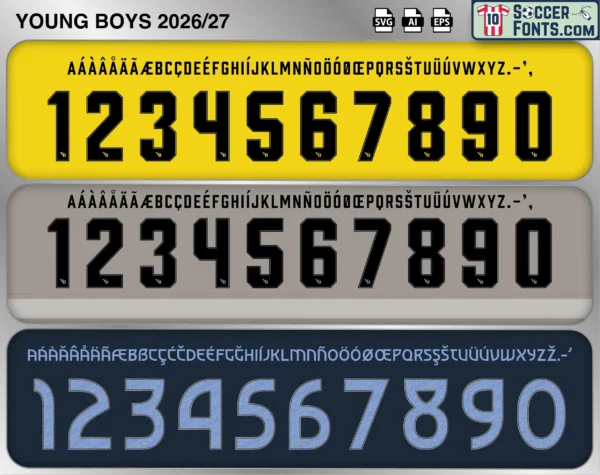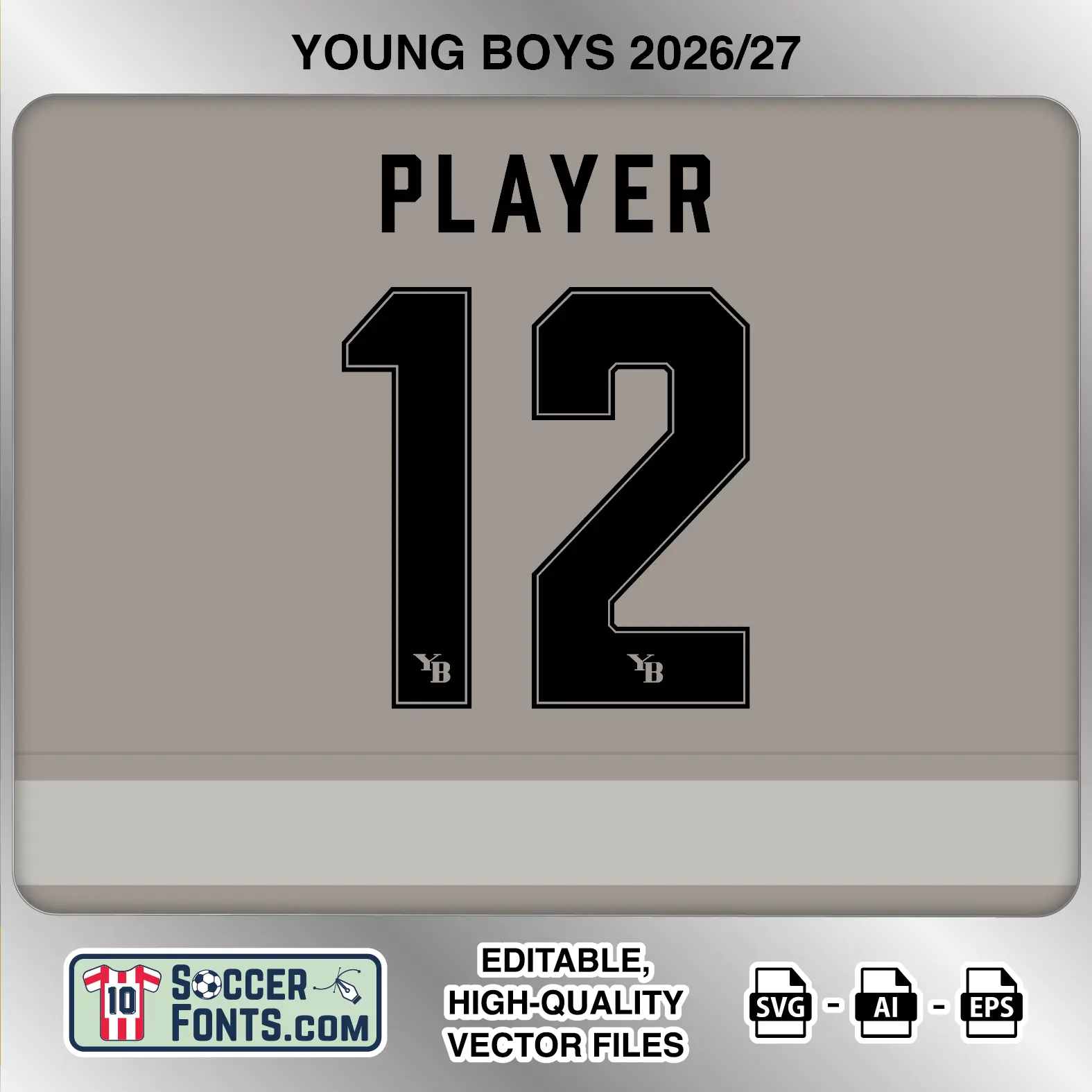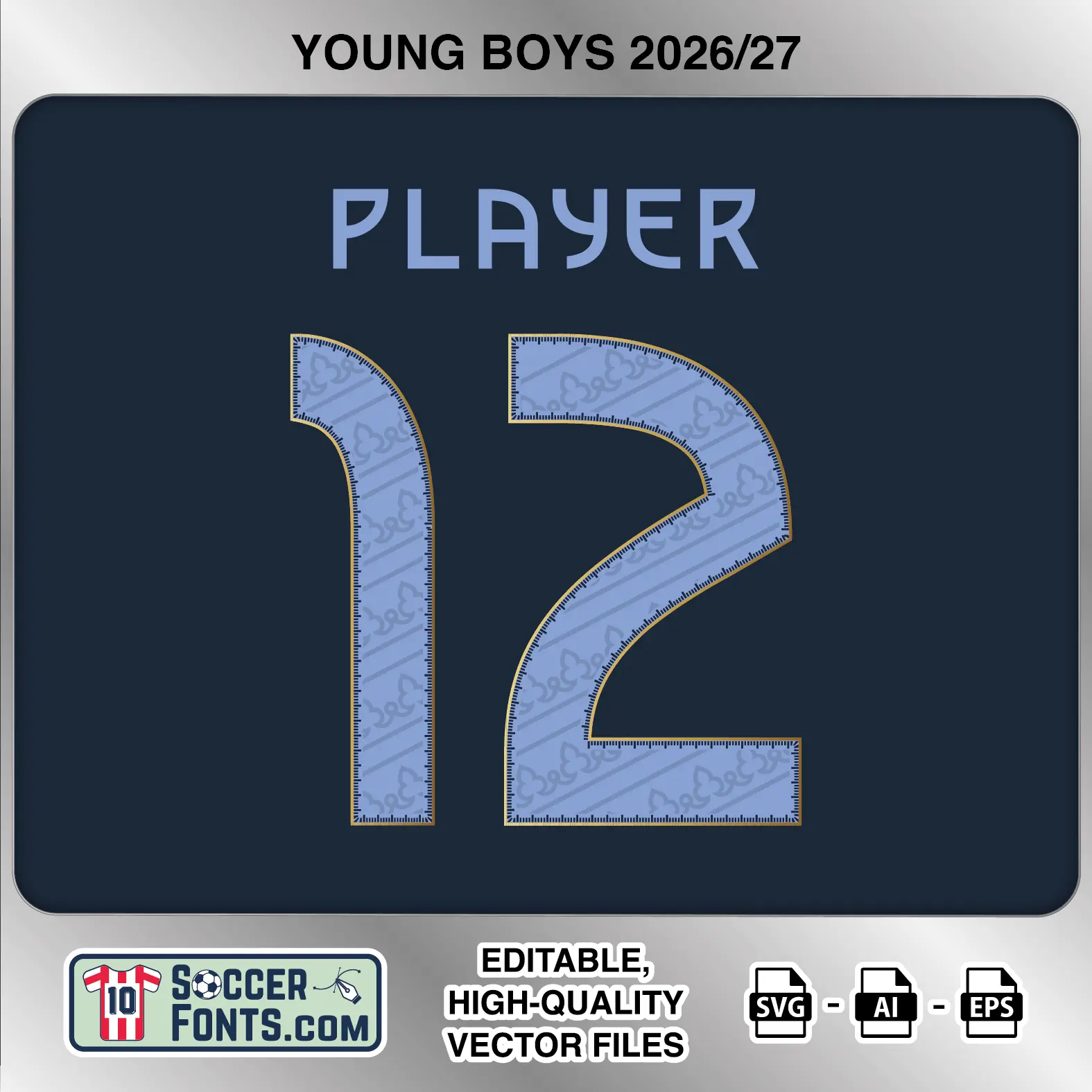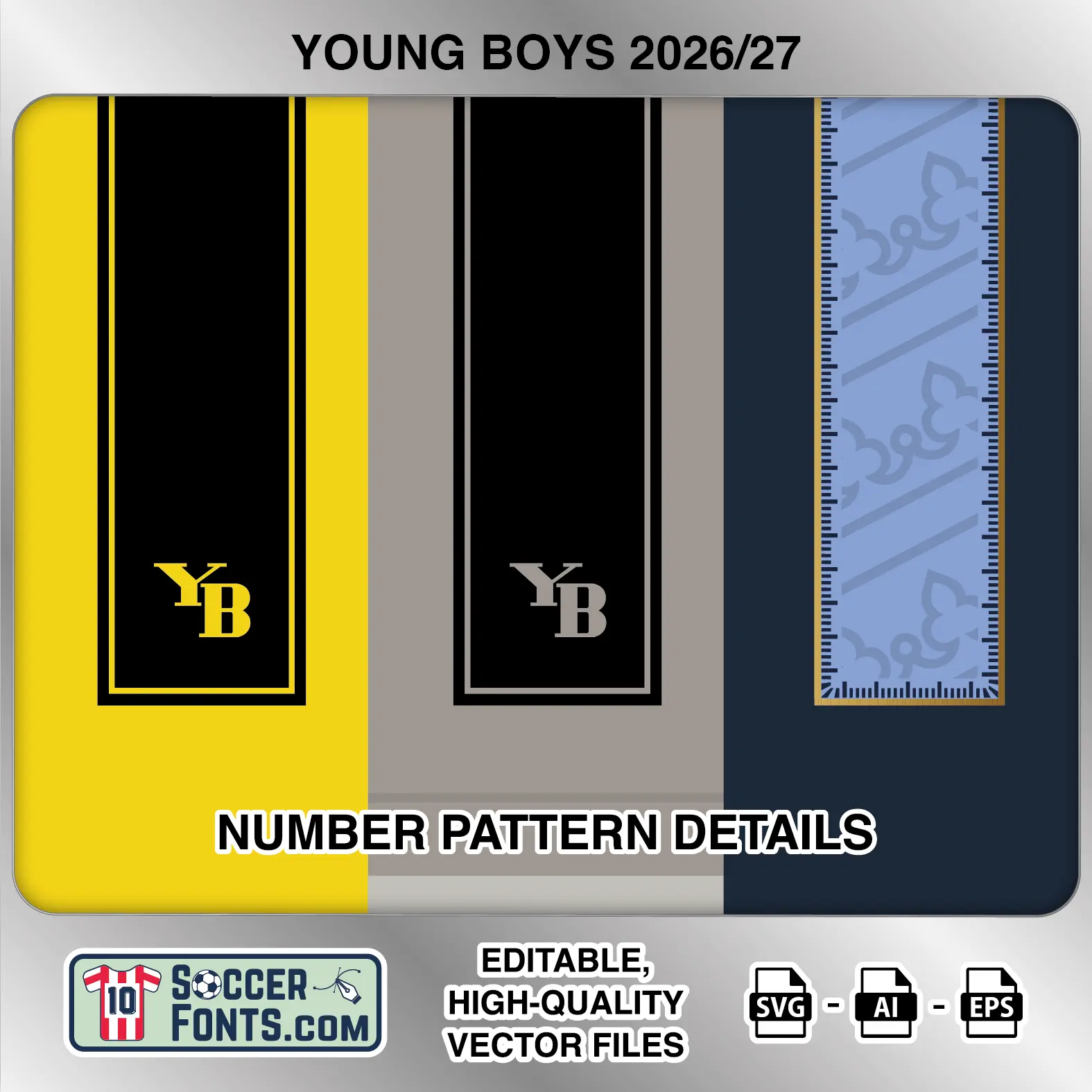
About Young Boys 2026-27 Font
Download Young Boys 2026-27 font, an editable soccer jersey lettering design in vector format inspired by the Young Boys home, away and third kit styles used during the 2026-27 football season. This football font artwork is prepared for football shirt recreations, custom jersey projects, football kit mockups and sports graphic design workflows.
Visual Identity of the Font Design :
The Young Boys 2026-27 collection features two clearly different lettering constructions across the three kit treatments. The home and away versions use a tall, condensed uppercase alphabet paired with heavy, angular numbers. The numerals have squared proportions, clipped corners and narrow rectangular counters, giving figures such as 3, 5, 6, 8, 9 and 0 a distinctly geometric structure. The 1 has an angled upper section, the 4 uses an open construction and the 7 combines a broad horizontal top with a long diagonal stroke. A small YB monogram is positioned near the bottom of every numeral.
The home version uses black lettering and numbers against the club’s bright yellow background, with a fine yellow line visible inside the black numerals. The away treatment applies the same black lettering structure against a muted light grey/taupe background, with a subtle light edge following the numbers.
The third version introduces a completely different design. Light blue lettering and numbers appear against a dark navy background, with more curved and flowing numeral shapes. The number fills contain a repeating tonal graphic pattern with diagonal elements, while fine dark detailing follows the edges and a thin gold-colored line defines the outer boundary. The supplied character sets also include numerous accented uppercase letters for international player names.
Context of 2026-27 Season for Young Boys :
BSC Young Boys entered the 2026-27 campaign with another season of Swiss Super League football and European competition on the schedule. The Young Boys 2026-27 Font belongs to a campaign in which the Bern club continues to carry its distinctive yellow-and-black identity through domestic fixtures while using its alternative kit treatments across a demanding calendar.
European football provides an additional stage for the club’s 2026-27 shirts, alongside the weekly challenge of the Swiss championship and domestic cup competition. Matches against leading Swiss opponents such as Basel, Zürich, Servette and Lugano remain important fixtures during the campaign, while Young Boys continue to represent Bern beyond the domestic schedule.
For football shirt collectors and kit design projects, the Young Boys 2026-27 Font brings the home, away and third lettering treatments together in one package. The angular black home and away numbers contrast strongly with the patterned light-blue third design, giving the Young Boys 2026-27 Font multiple visual options for recreating the club’s 2026-27 jersey lettering.